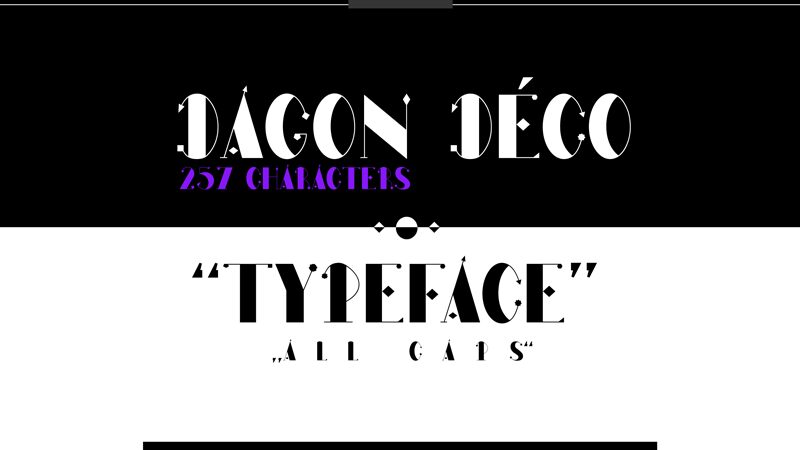
FN DAGON DCO is a gothic-antigua All-caps Font with a lot of ligatures.
The font includes 44 ligatures, 27 alternate uppercase, full punctuation, and international language support.
FN Dagon Deco